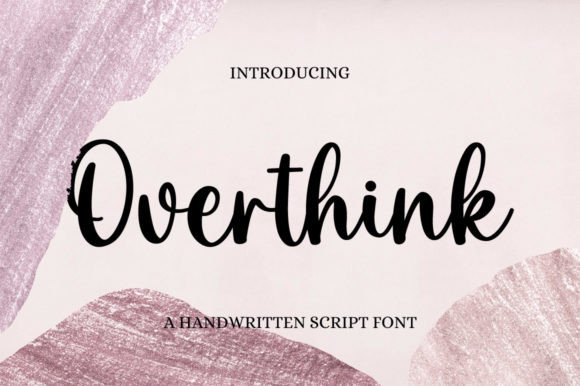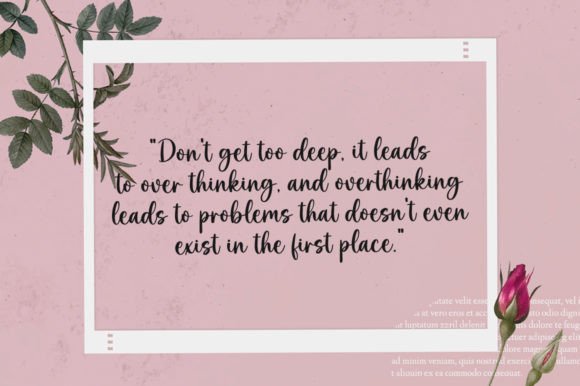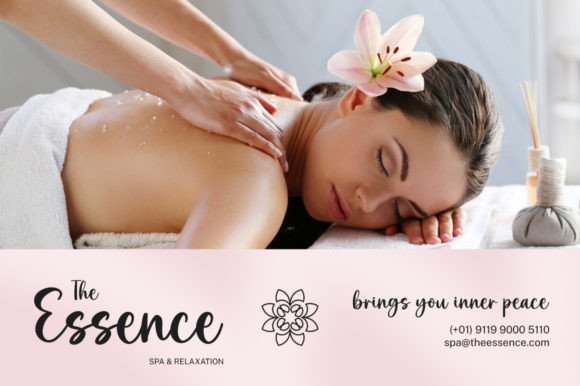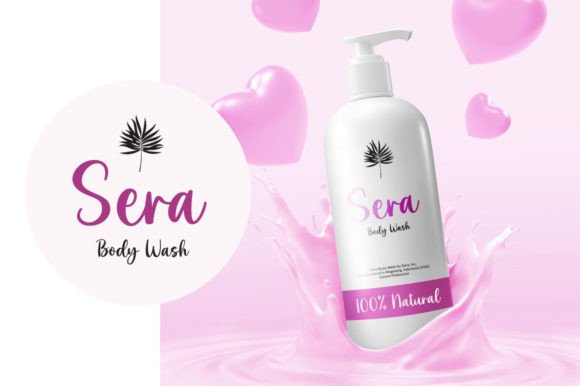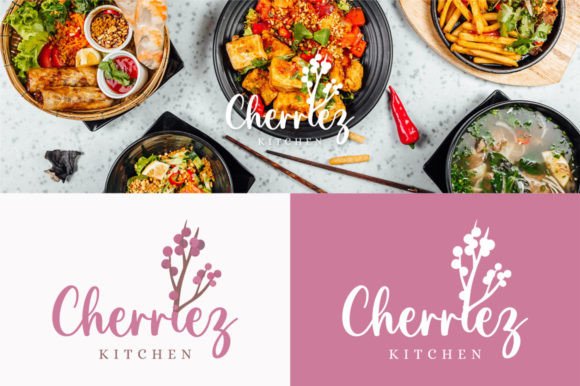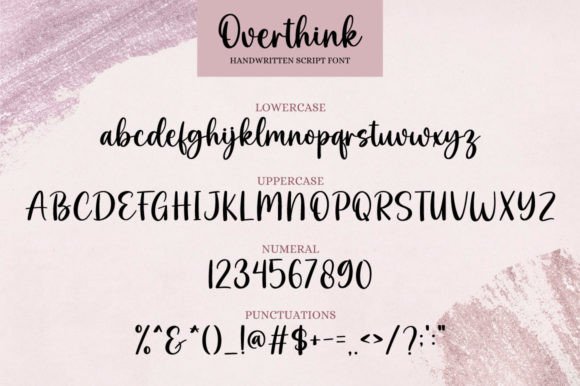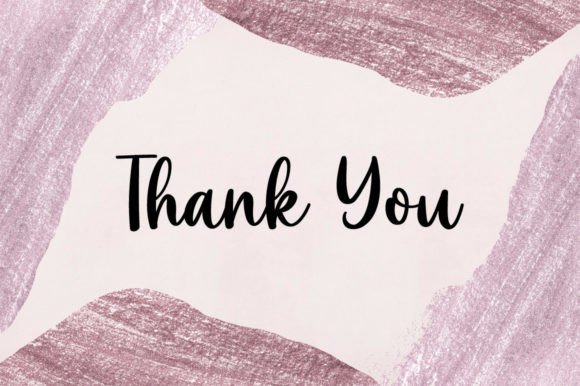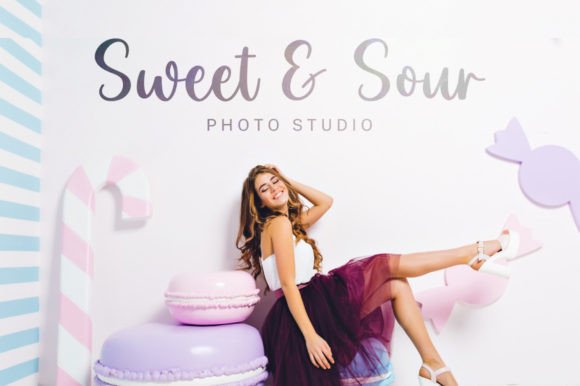
Overthink Font
About Overthink Font
Overthink is a delicate, elegant, and flowing handwritten font. It has beautiful and well-balanced characters and as a result, it matches a wide pool of designs.